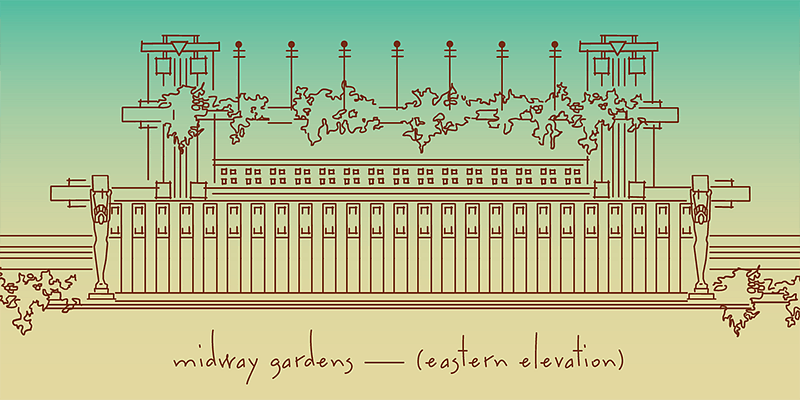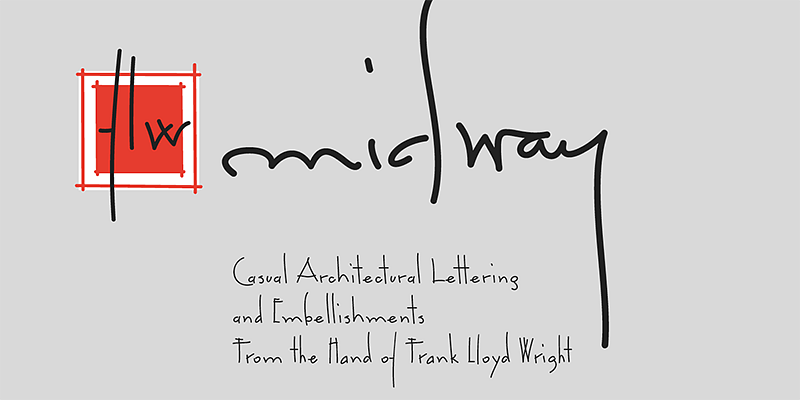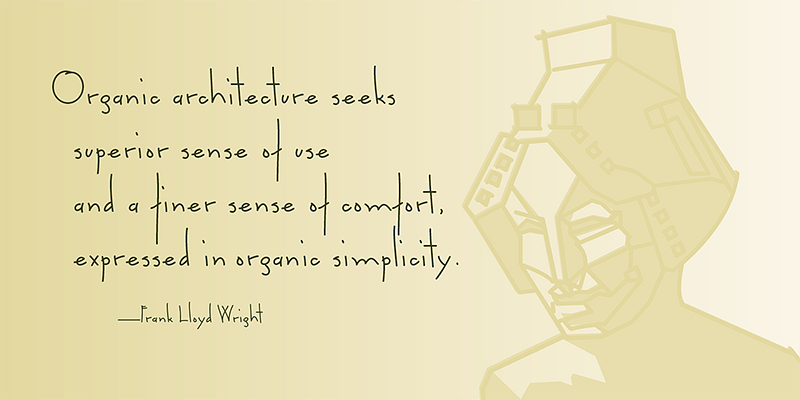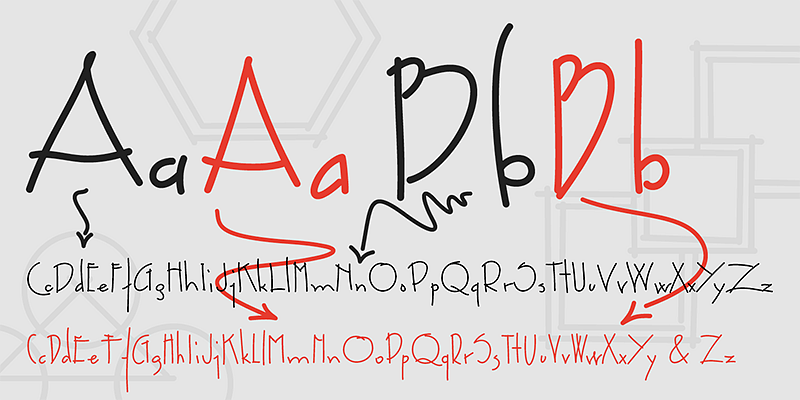
P22 FLW Midway is a bit more casual than standard architectural lettering, based on Frank Lloyd Wright’s hand-lettering found on the Chicago Midway Gardens working drawings from 1913.